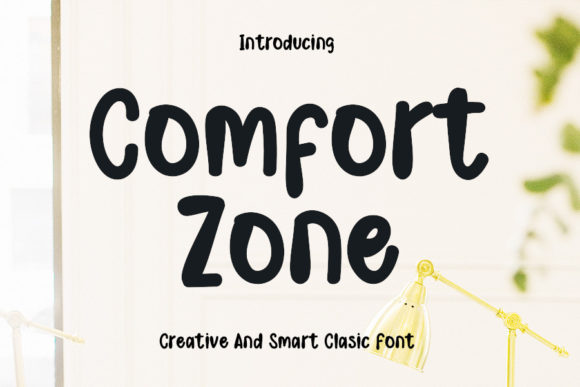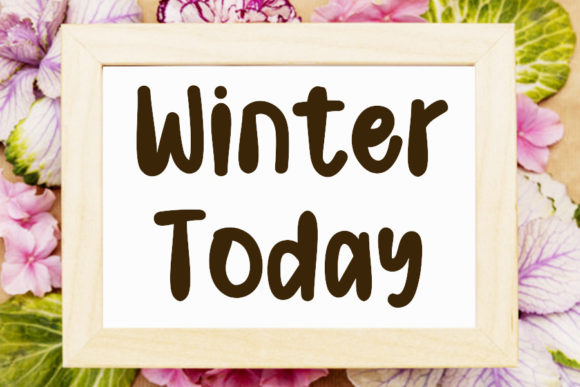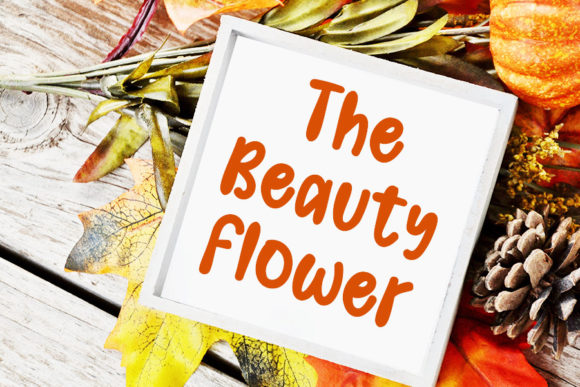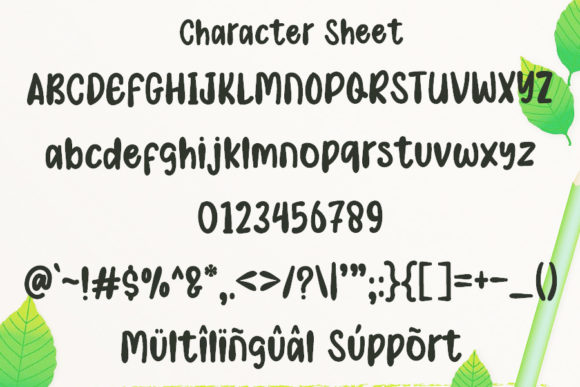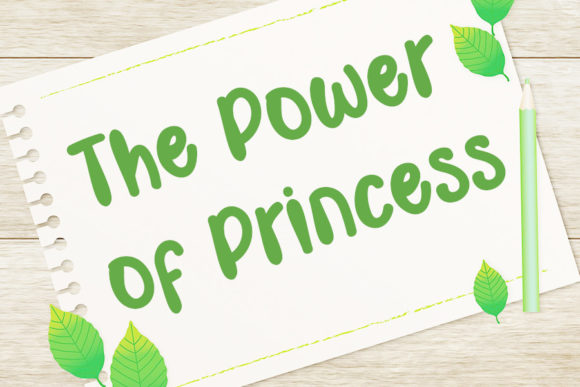
Comfort Zone Font
About Comfort Zone Font
Comfort ZoneĀ is a cute and simple lettered handwritten font that can be used for all chalkboard quotes or teaching material! Its authentic look will add a personal and realistic feel to your designs.